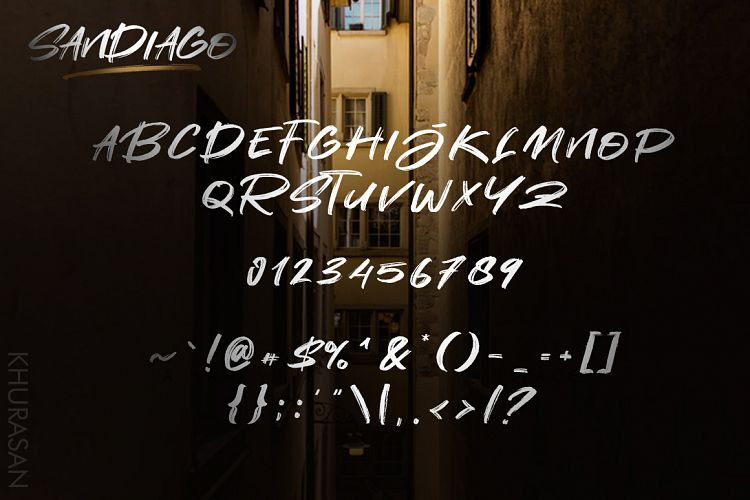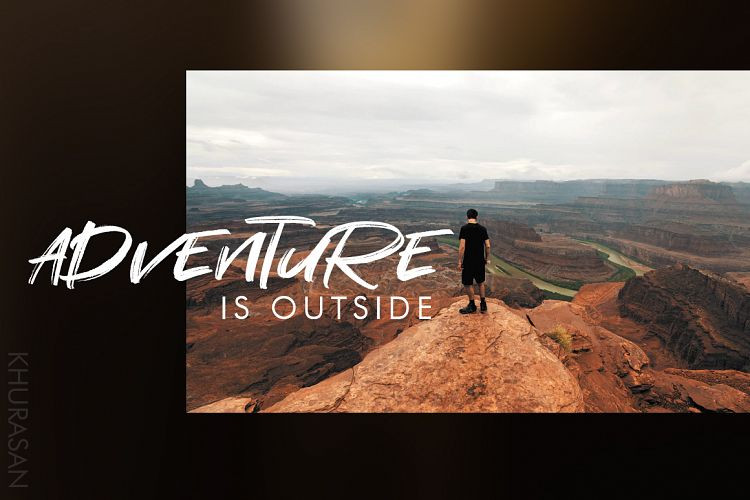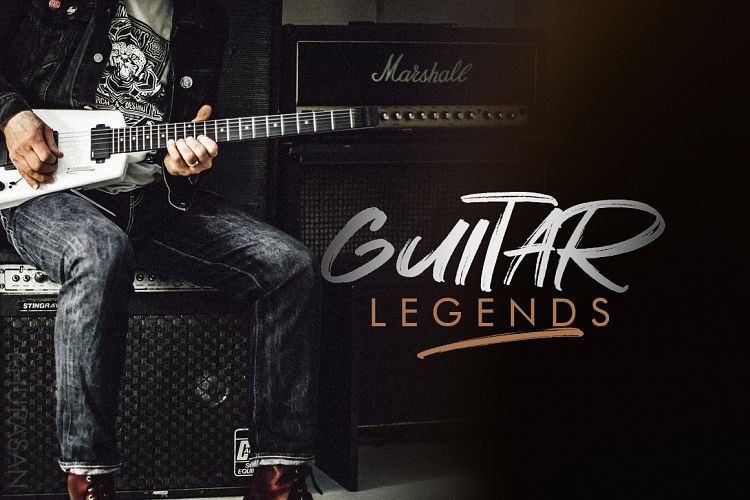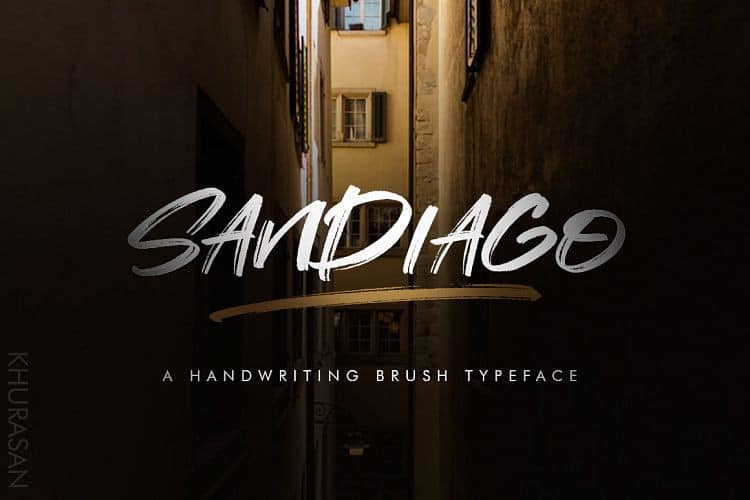
Sandiago Brush Font
I am happy to introducing to you a modern brush font, this is a brush script that is written casually and quickly. Letters are made with brushes on paper. Introducing Sandiago Font. The Sandiago is new handwritten font brush, elegant and vintage feel character set. The Sandiago font only set capital letters, as well as multi-lingual support, ,numerals, punctuation & swashes. This font is great for your next creative project such as Logotype, printed quotes, invitations, cards, product packaging, headers, Letterhead, Poster, Apparel Design, Label, and etc.